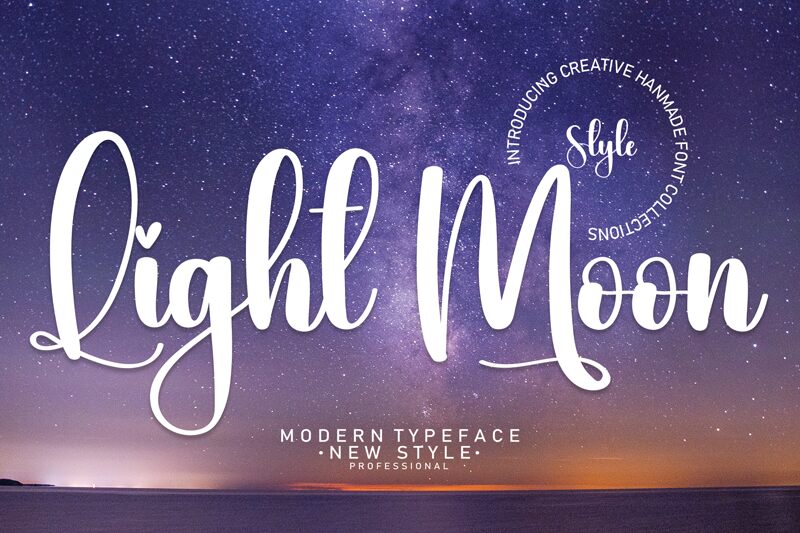
Light Moon
Light Moon, designed by Scratchones, is a handwritten font that boasts an elegant and flowing aesthetic. Its delicate strokes and organic form exude a personal touch, reminiscent of fine penmanship. The graceful curves and varying line weights of Light Moon give it a naturally sophisticated charm that can enhance the visual storytelling of any creative project.
The font's style lends itself to applications where a touch of intimacy and individuality is desired. Whether it's for wedding invitations, boutique branding or the pages of a poetry book, Light Moon has the versatility to bring warmth and character to both print and digital canvases.
Embrace the allure of Light Moon for your next design venture and let its unique handwritten quality add an authentic narrative to your work.